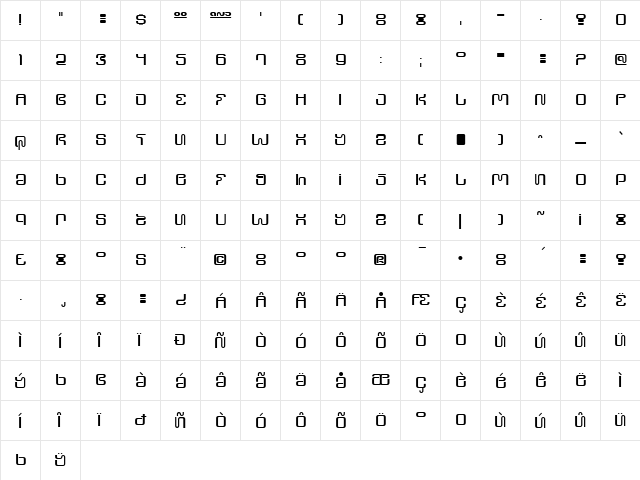
Ultra Supervixen Regular
Design Context for Ultra Supervixen Typeface
Ultra Supervixen is a composed and adaptable typeface that performs quietly and consistently across a wide range of design contexts.